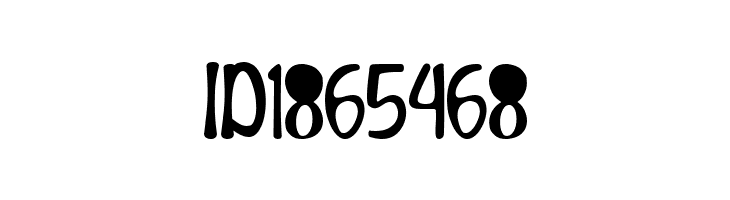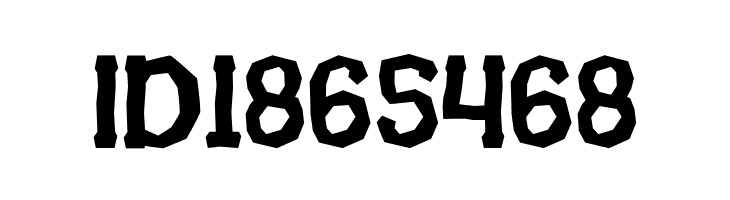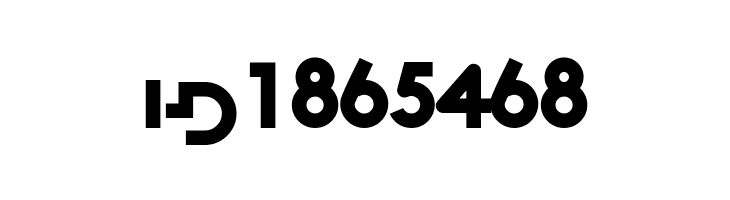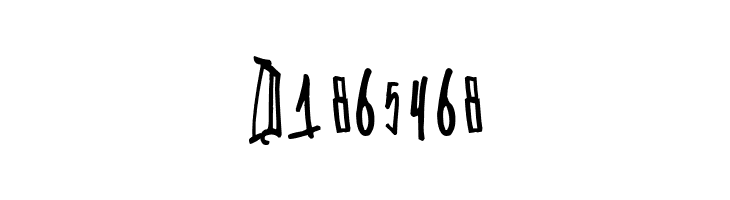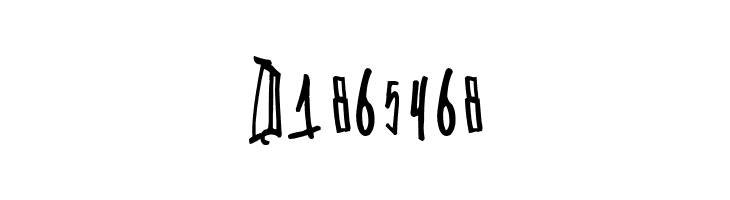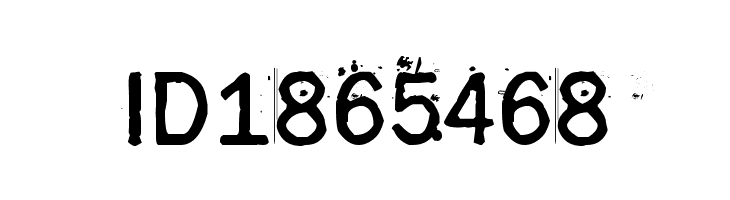
• Grafina
A playful, hand-drawn font with bold, rounded strokes and an informal style.
• Grafitik Riot
A graffiti-inspired font with elongated, angular characters and an urban aesthetic.
• GrafitikRiot
A bold, graffiti-inspired font with angular, dynamic characters.
• Grapevine
A tall, narrow font with a distressed, vintage texture.
• Grapevine
A tall, narrow font with a distressed, vintage appearance.
• Grapheno
A bold, geometric font with rounded edges and a modern aesthetic.
• Grasshopper Z
A bold, distressed font with a grunge, vintage style.
• Grasshopper Z
A distressed, grunge-style font with a rugged, textured appearance.
• Gravimetric
• GREADOWN
A bold, hand-drawn font with a rugged, distressed aesthetic.